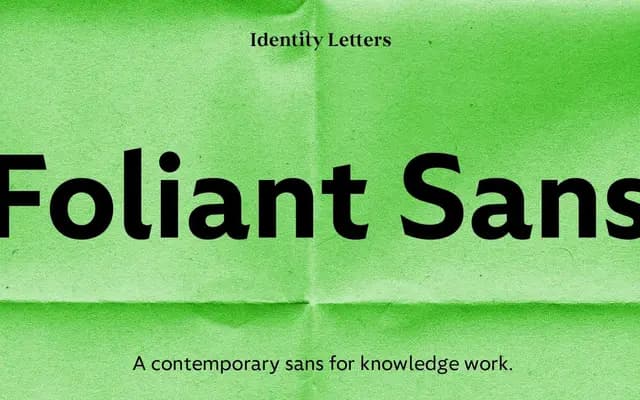
Foliant Sans
A humanist sans with geometric proportions and angled stroke endings, spanning 10 weights across two subfamilies tuned for text and brand use respectively.
Foliant Sans pairs a geometric appearance with humanist construction, using dynamically angled stroke endings to keep it approachable and sincere at text sizes. The default subfamily mirrors the letterforms of the companion Foliant Serif for consistent legibility across mixed-type settings, while Foliant Sans Modern strips back detail for a cleaner, more graphic presence at display sizes. Forty-two fonts cover 10 weights from Air to Black, each with matching italics, and include OpenType features such as small capitals, oldstyle figures and case-sensitive forms.
Described explicitly as a humanist typeface with a geometric look and dynamically angled stroke endings, placing it at the intersection of humanist and geometric sans traditions.